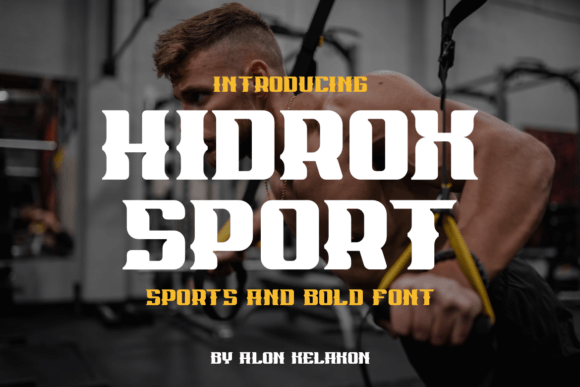
Introducing Hidrox Sport Font, the ultimate choice for tech enthusiasts seeking the perfect font to elevate their designs! Crafted with precision by the talented alonkelakon, this serif font is guaranteed to captivate your audience and add a touch of sophistication to any project.
Unleashing the power of Hidrox Sport Font, you enter a realm of endless possibilities. Its uniqueness sets it apart from the mundane fonts out there, making your creations truly one-of-a-kind. Whether you're designing labels, clothing, movie scenes, posters, movie titles, gigs, album covers, or logos, this font is your all-in-one solution.
With its sleek and modern design, Hidrox Sport Font seamlessly integrates into any tech-related project. Its versatility knows no bounds, making it the ideal choice for tech people seeking to make a bold statement. This font will embody the essence of innovation, seamlessly blending with your cutting-edge designs.
Unlock your creativity and let Hidrox Sport Font be your trusted companion on your design journey. Feel the rush of excitement as you witness your ideas come to life with this powerful font. It breathes life into your words and injects an irresistible charm into your visuals, leaving a lasting impression on your audience.
Don't settle for ordinary when you can have extraordinary. Embrace the power of Hidrox Sport Font and witness your designs soar to new heights. Whether you're a seasoned designer or just starting out, this font will redefine your creative process and inspire you to push boundaries.
Experience the magic of Hidrox Sport Font today and embark on a thrilling design adventure like never before. Let your imagination run wild and watch as your creations become a masterpiece. Elevate your designs, captivate your audience, and leave your mark with Hidrox Sport Font – the ultimate choice for tech people seeking excellence.